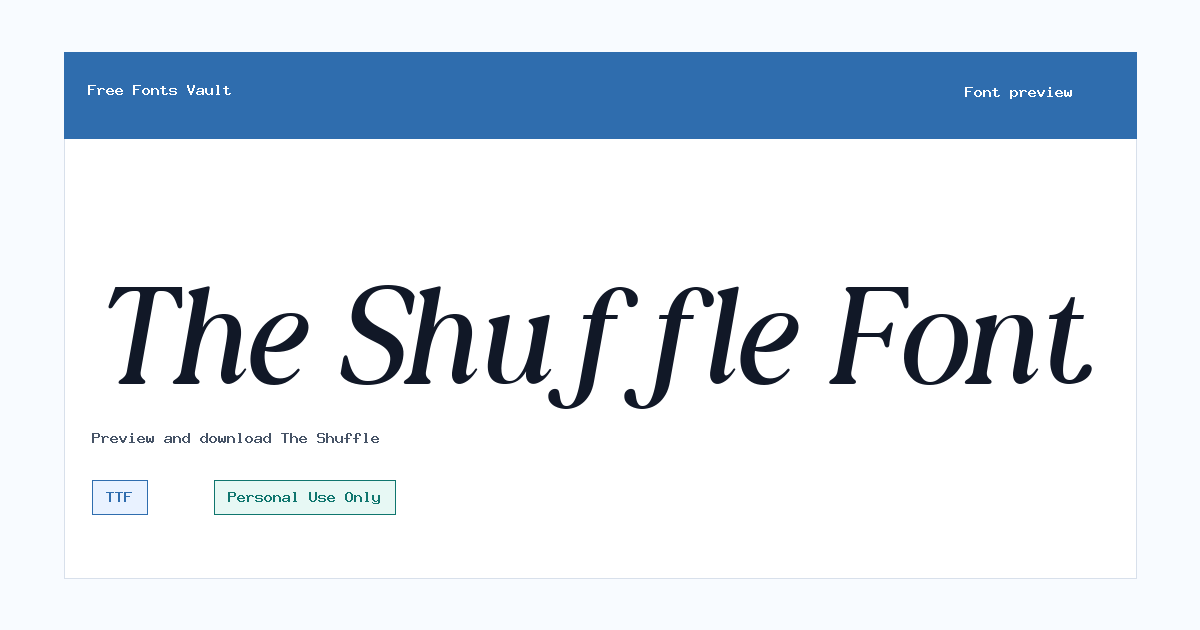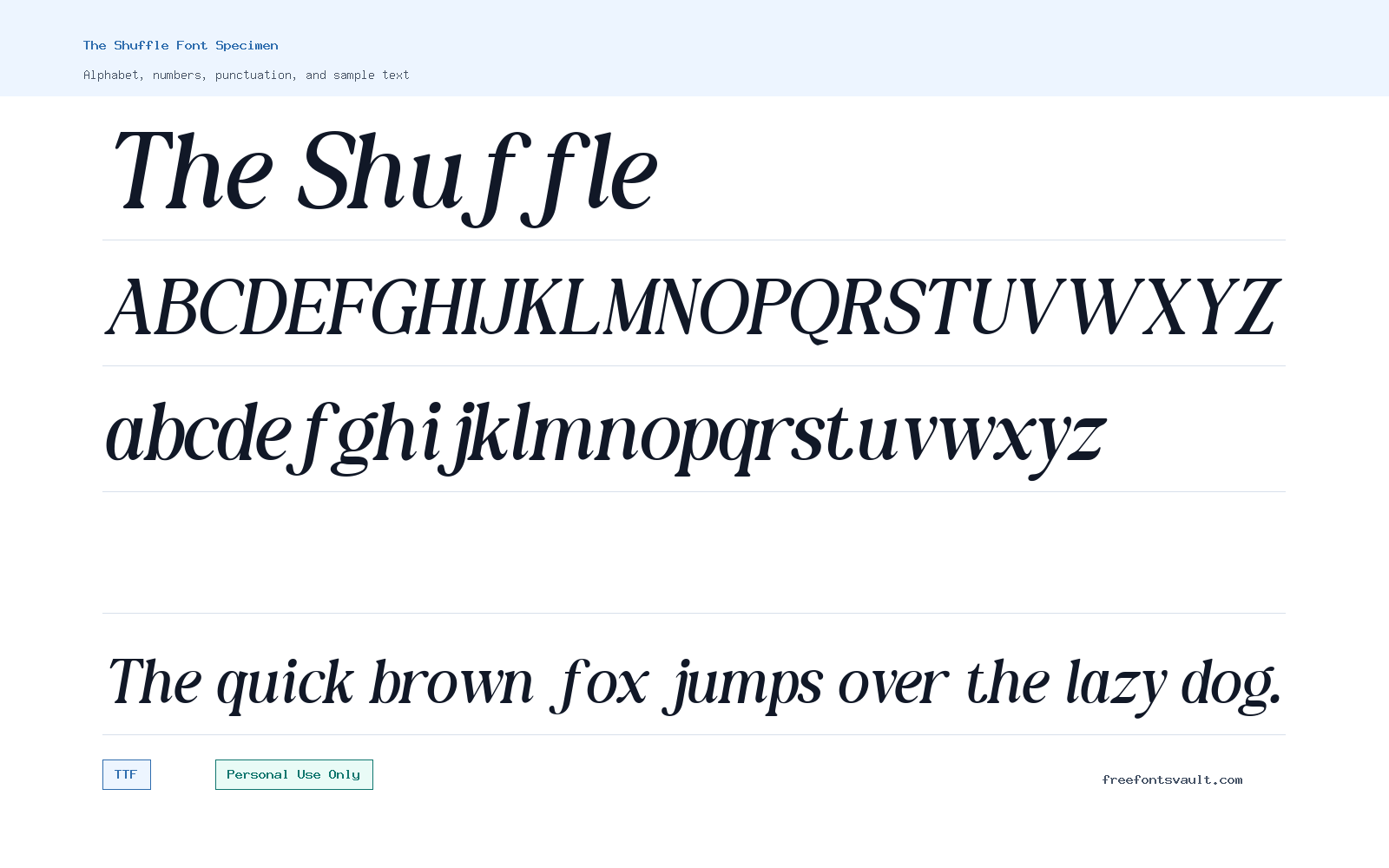
The Shuffle
The Shuffle is a decorative serif font with a stylish display feel, made for short text that needs a polished and distinctive look. It is best treated as a headline or accent font rather than a long-reading typeface.
About The Shuffle Font
The Shuffle works well when you want a serif style that feels more expressive than a plain text face. Its regular TTF file is suited to display settings such as titles, names, logos for personal projects, labels, invitations, quote graphics, and social media artwork. Because the family information lists one regular style, the safest way to use it is as a main visual voice in selected words instead of relying on a full set of weights for a complete layout system. Try it in the preview with brand names, initials, event titles, and short phrases to see how the spacing and letter shapes behave.
For readability, keep The Shuffle large enough to show its character clearly. Decorative serif fonts can lose detail when they are reduced too far, especially in mobile images, small buttons, captions, or dense paragraphs. If you are building a design around it, pair it with a quiet sans serif or a simple text serif for supporting copy. Let The Shuffle handle the headline, then use the companion font for descriptions, dates, body text, or calls to action. Before downloading, test uppercase, lowercase, numbers, and punctuation in the preview so you know whether the exact wording you need feels balanced.
- Decorative serif styling for headlines, names, and short display text
- Personal invitations, quote cards, mood boards, and social posts
- Display titles, labels, personal logo drafts, and short branding mockups
The designer is listed as FLAWLESSANDCO. No foundry name or designer website is listed in the available font details.
Use The Shuffle for short, high-impact text and pair it with a cleaner font for longer reading. Test your exact words in the preview before using it in a finished personal design, especially if the design includes small text, punctuation, or tight spacing.
What is The Shuffle best used for?
It is best for short display text such as titles, personal invitations, quote graphics, labels, social posts, and visual mockups.
Can I use The Shuffle for body text?
It is not the best choice for long paragraphs. Use it for headings or accent words, then choose a simpler companion font for body copy.
Who designed The Shuffle?
The font details list FLAWLESSANDCO as the designer.